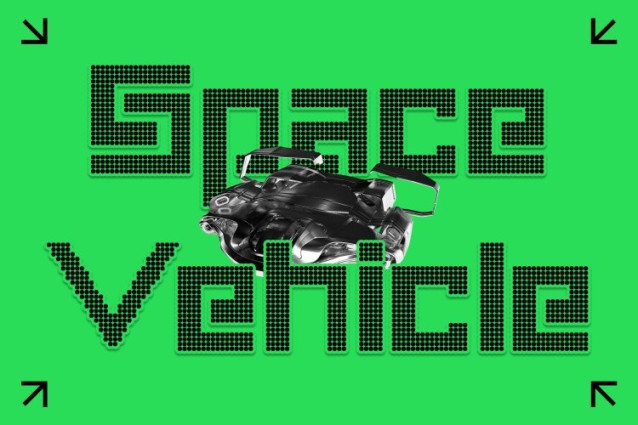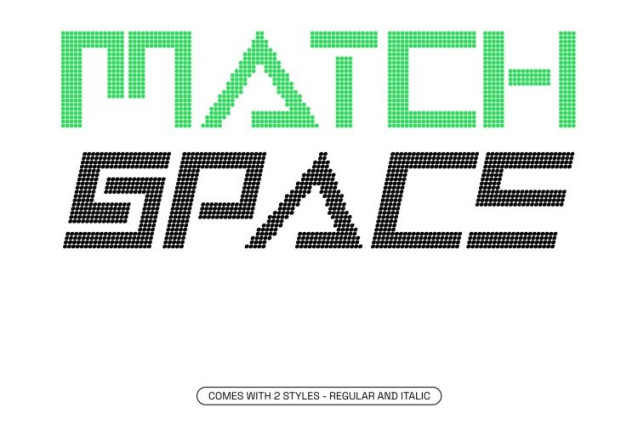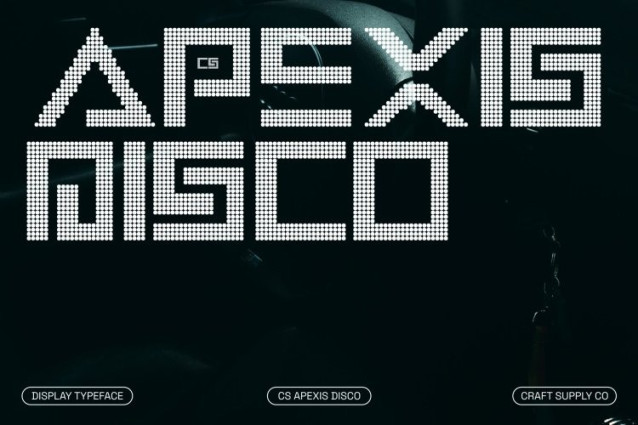
CS Apexis Disco Font
CS Apexis Disco Font This is a futuristic display font rooted in industrial brutalism and modern techno aesthetics, energized with a subtle disco-inspired rhythm. Built from clean lines and sharp structures, it delivers a bold, forward-looking appearance that feels innovative, technical, and visually commanding.
Brutalist Structure with Dynamic Attitude
Inspired by industrial brutalist design, this font features rigid geometry, solid forms, and a mechanical character that communicates strength and stability. The firm construction is balanced by rhythmic spacing and energetic flow, giving the font a powerful presence without sacrificing control or clarity.
Clean Precision with Futuristic Energy
Precision defines every letterform. Crisp edges and well-defined shapes create a sleek, high-tech impression, while minimal ornamentation enhances readability. The added disco energy introduces motion and intensity, transforming static brutality into dynamic visual impact.
Built to Push Creative and Visual Boundaries
Ideal for technology branding, sci-fi visuals, gaming titles, posters, digital interfaces, and experimental layouts, this is designed to stand out and challenge convention. It combines industrial strength, modern techno spirit, and disco-charged energy turning typography into a bold statement of the future.